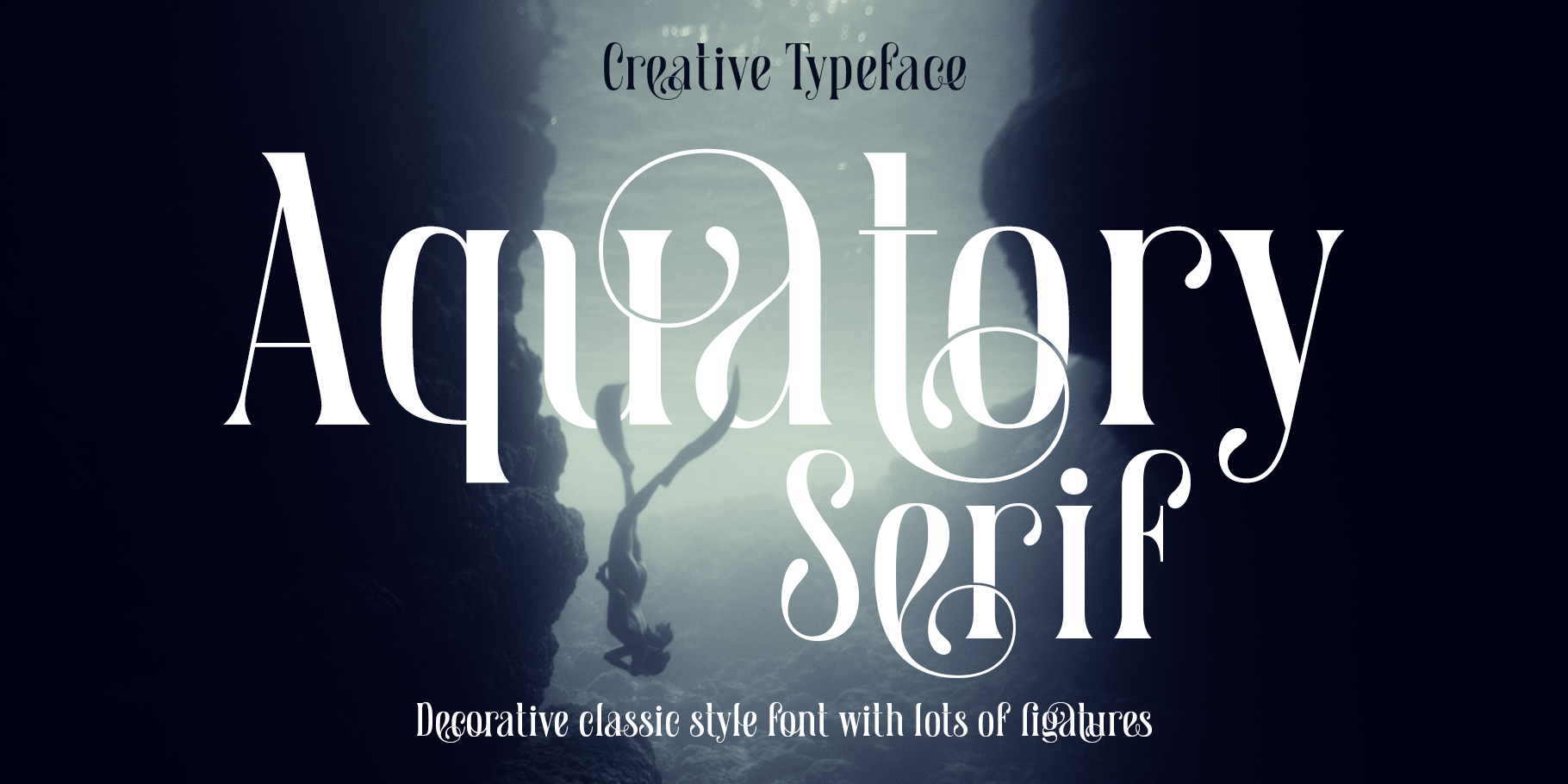
Aquatory Serif Font is perfect for marine research publications, aquarium educational materials, oceanographic institute branding, aquatic life conservation campaigns, underwater photography portfolios, and sophisticated marine science communications. Its fluid character makes it ideal for marine biologists, aquatic research centers, oceanographic museums, underwater exploration companies, and any application requiring elegant typography that conveys aquatic sophistication, marine scholarship, and the profound beauty of underwater ecosystems and aquatic life studies.
Aquatory Serif Font is exciting because it captures the flowing elegance and scholarly depth of marine research through gracefully fluid letterforms that reflect the gentle currents and sophisticated complexity of aquatic environments. Its aquatic proportions and marine-inspired details evoke the serene beauty of underwater worlds and the methodical precision of marine scientific research, making it perfect for organizations dedicated to understanding and protecting aquatic life. The font's aquatic character transforms communications into expressions of marine scholarship.
Aquatory Serif Font family includes marine-inspired weight variations typically featuring Light, Regular, Medium, and Bold options with flowing serif styling that maintains aquatic authenticity. The family often incorporates marine symbols, aquatic ornaments, and oceanographic elements designed for scientific applications, providing designers with comprehensive tools for creating authentic, aquatic-focused typographic compositions.
When selecting marine research typography solutions, Aquatory Serif Font Free Download represents an exceptional choice for aquatic science and educational projects. This elegant typeface brings instant marine authenticity to any design, making it invaluable for aquariums, marine research institutions, and oceanographic organizations celebrating aquatic life. Whether you're developing marine education materials, creating aquarium exhibition graphics, or designing oceanographic research publications, Aquatory Serif Font provides the aquatic elegance and marine authenticity essential for communicating underwater science in today's ocean conservation-focused research marketplace.